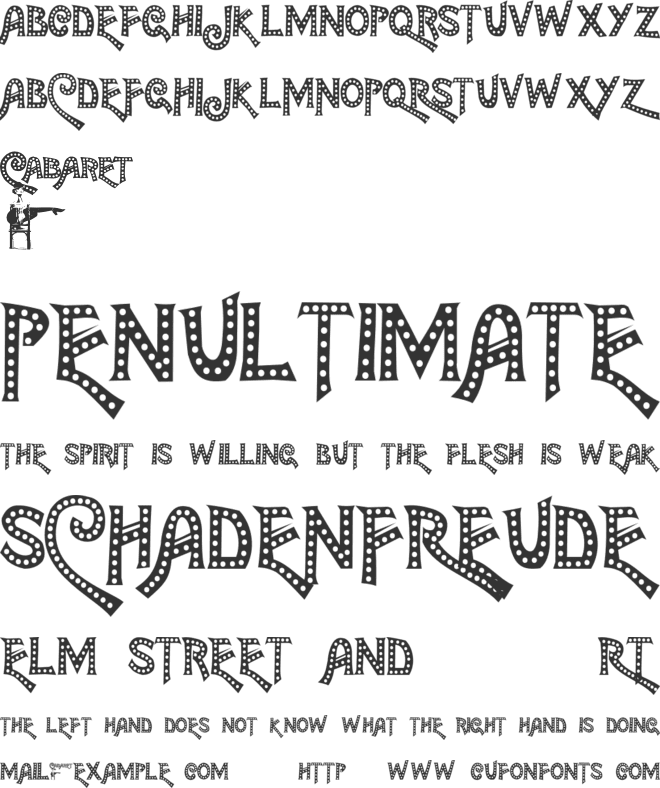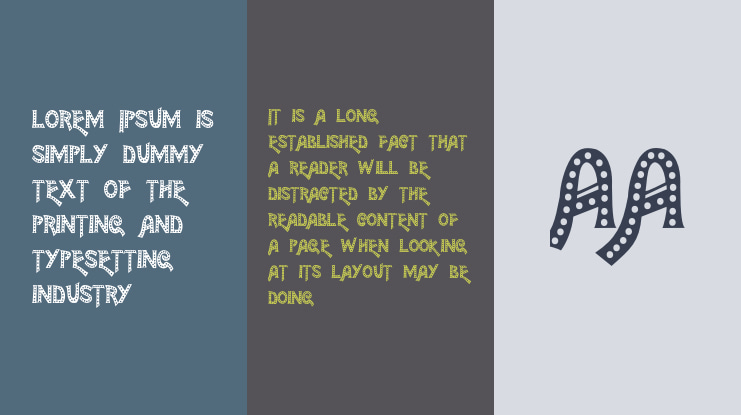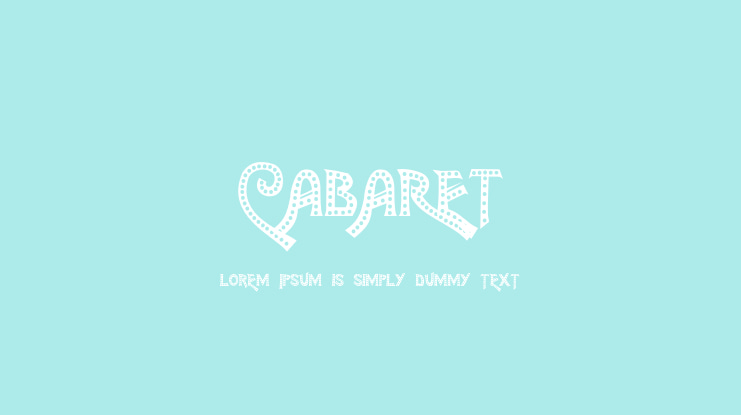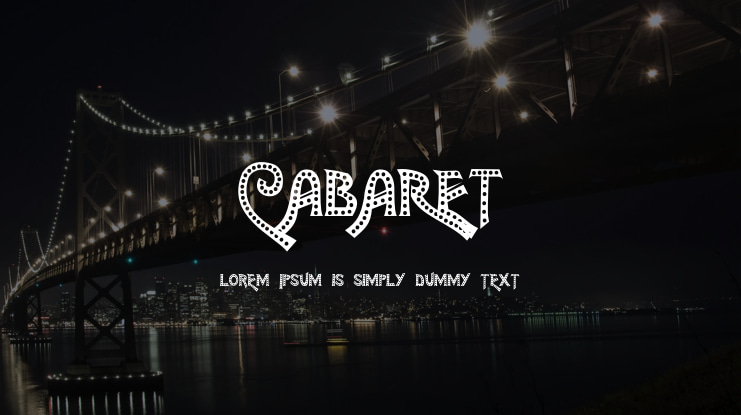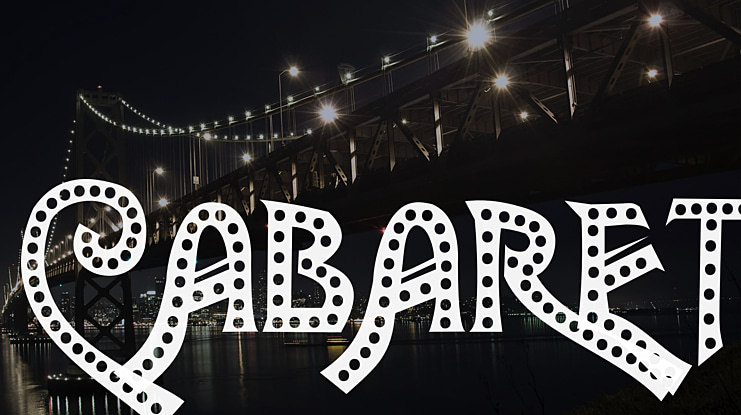
CABARET Font
directly from the Best movie by BOB FOSSE, with Liza Minnelli, the original font for all lovers.
direttamente dal film diretto da BOB FOSSE e interpretato da Liza Minnelli, il font inedito per tutti gli estimatori del film.